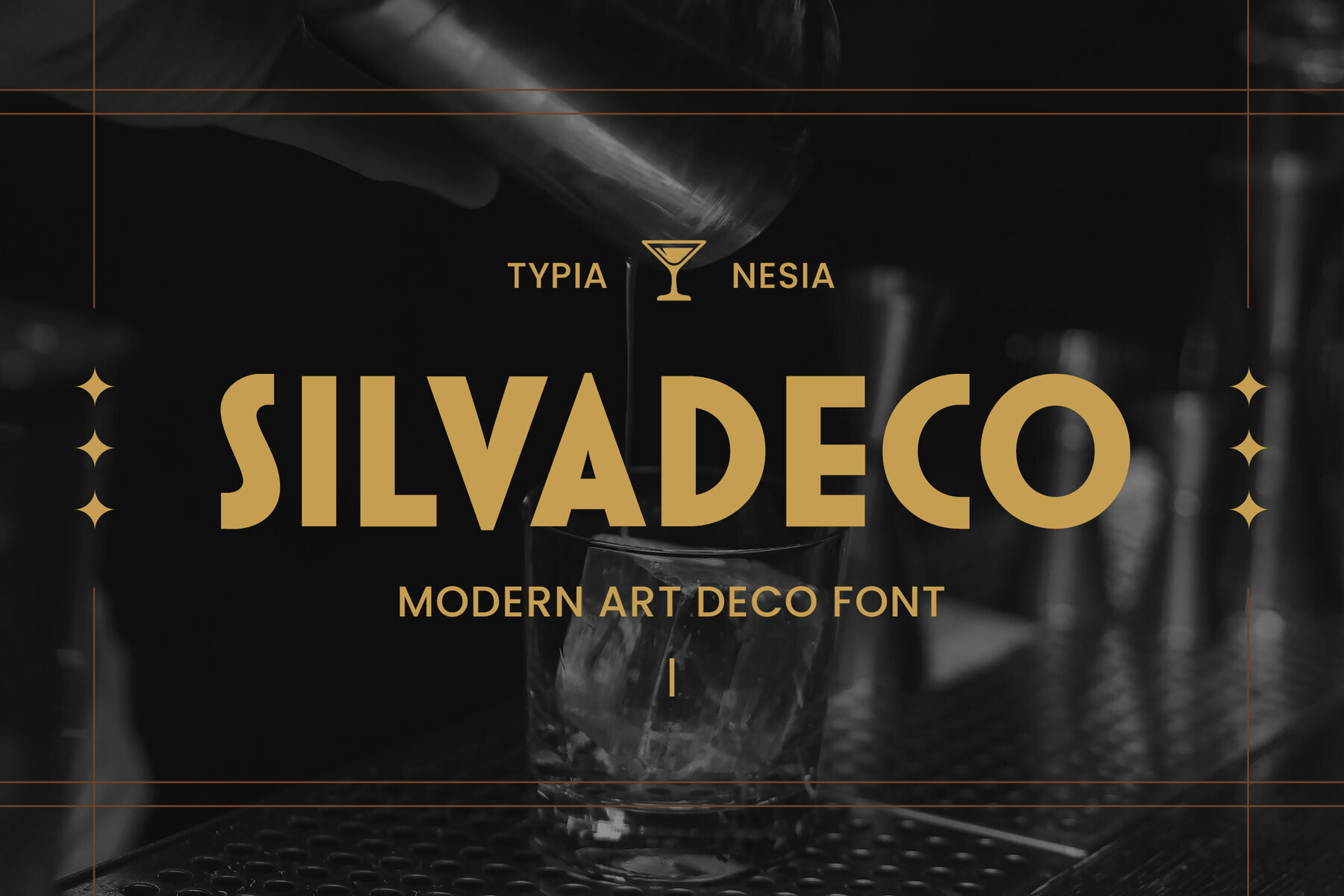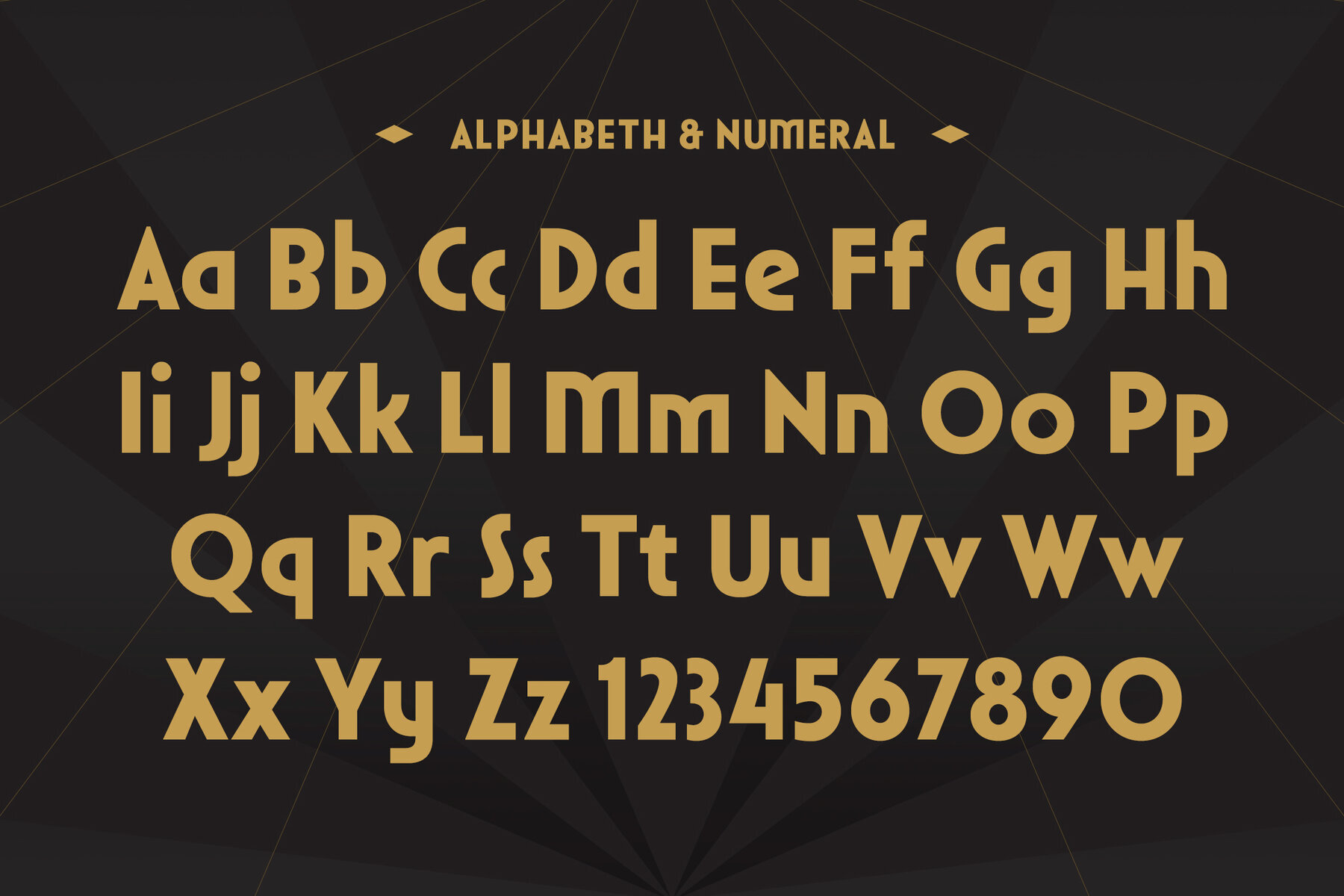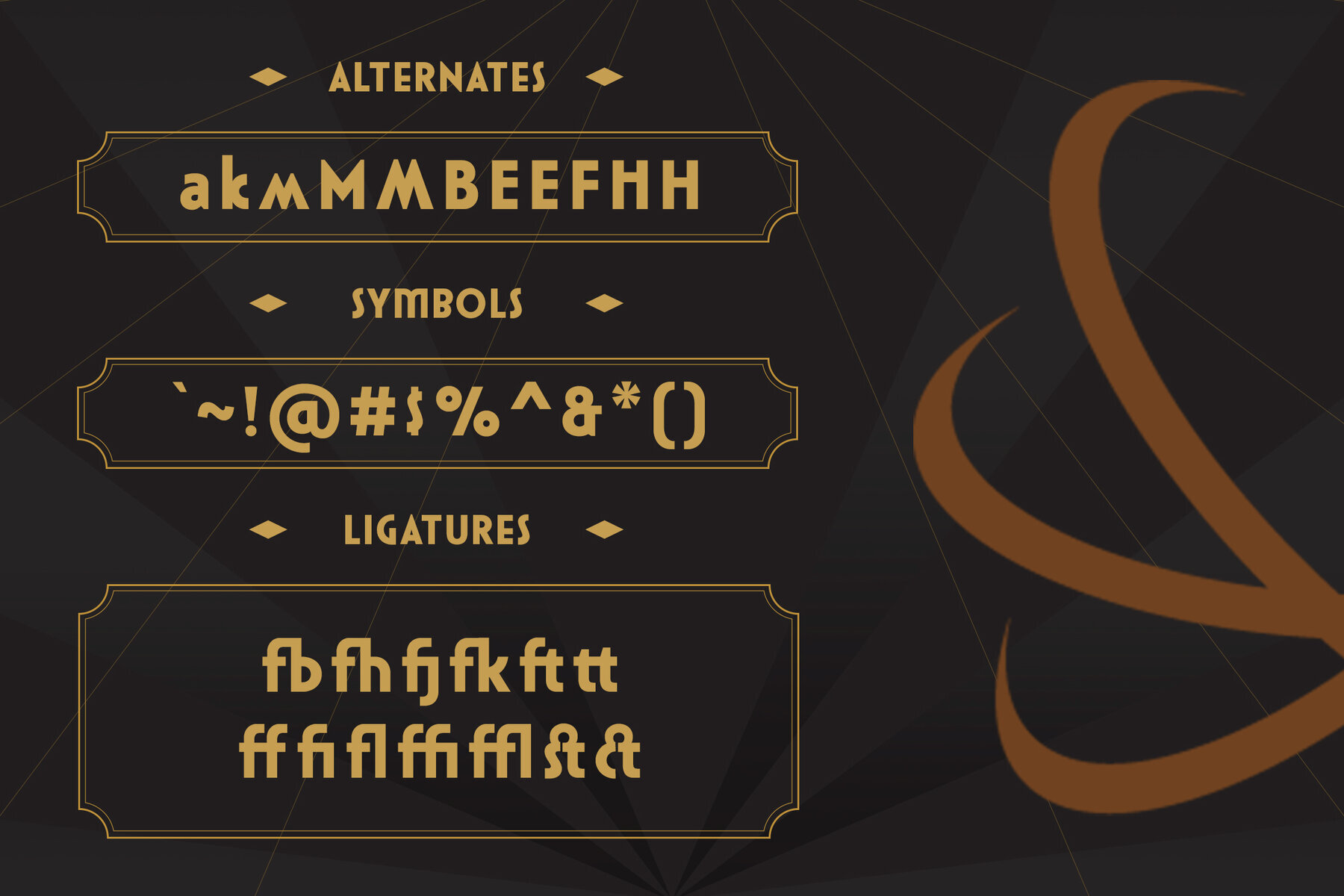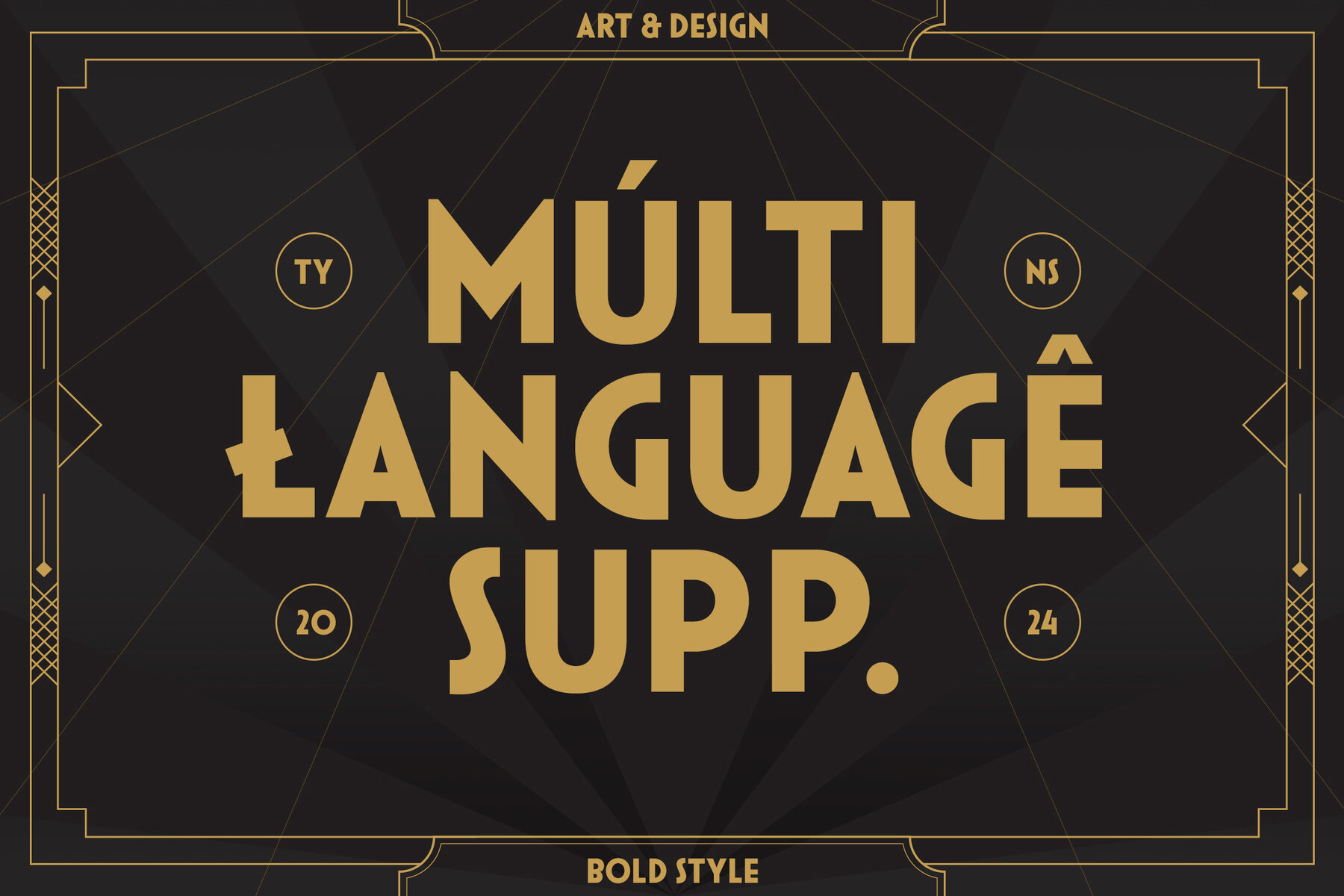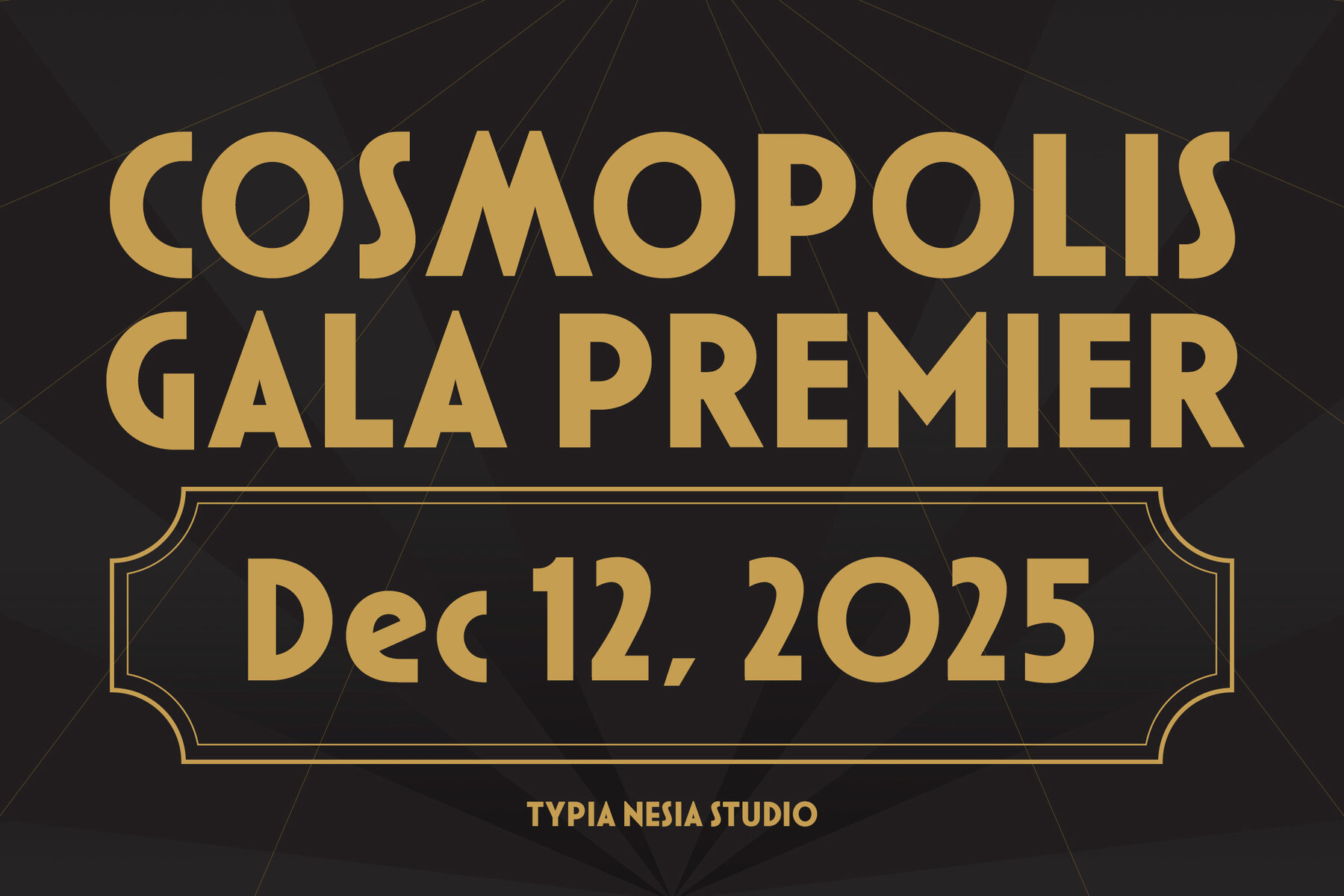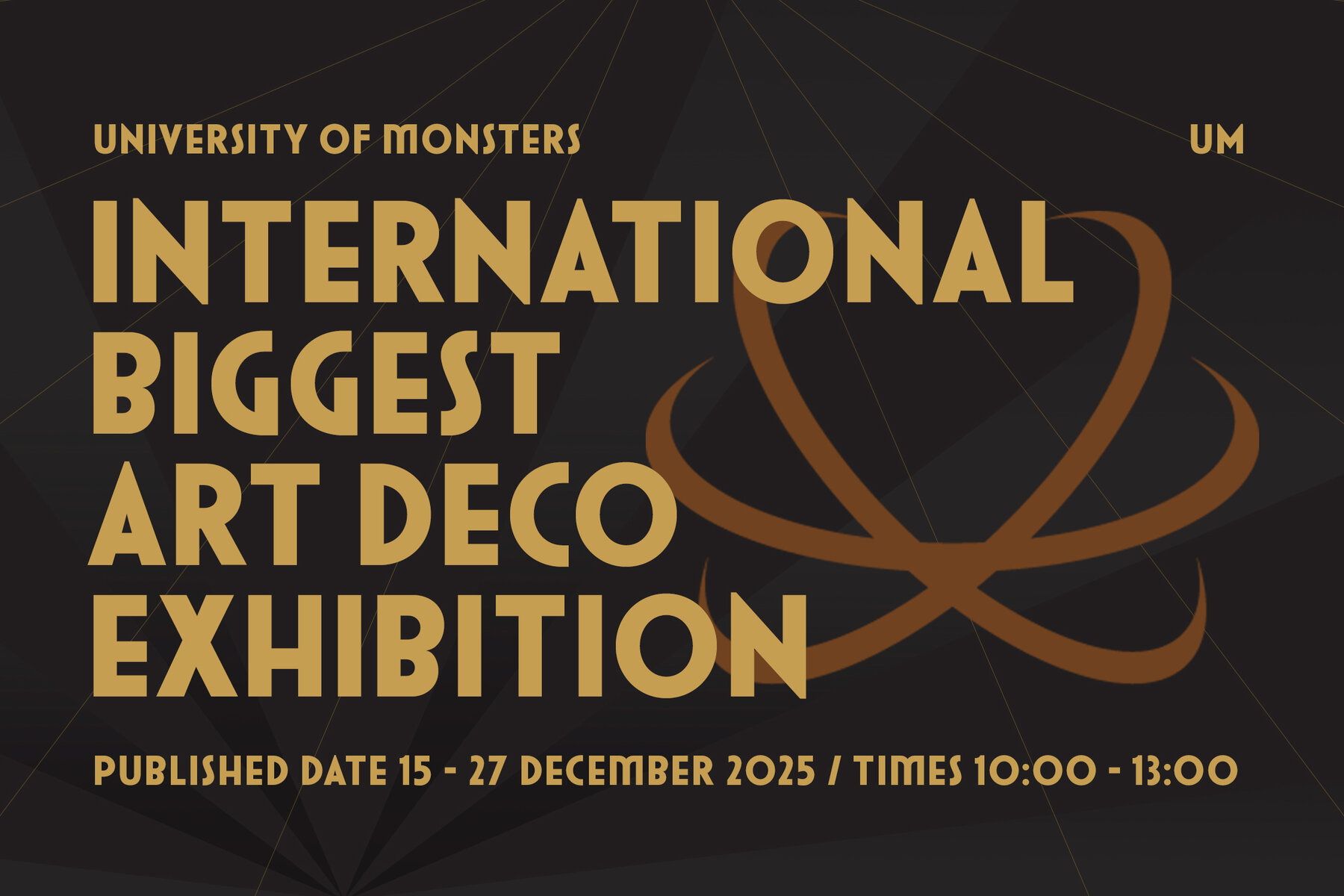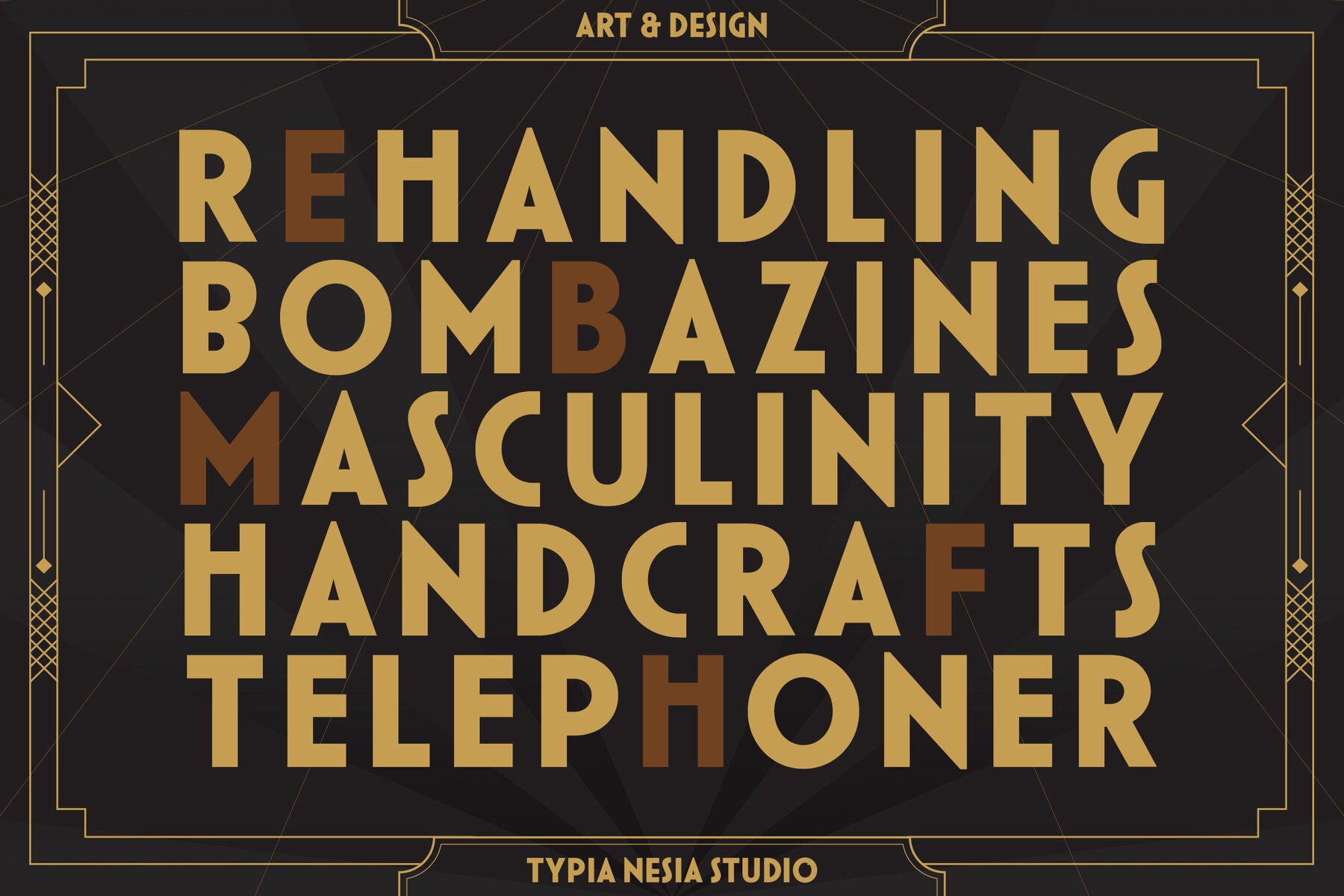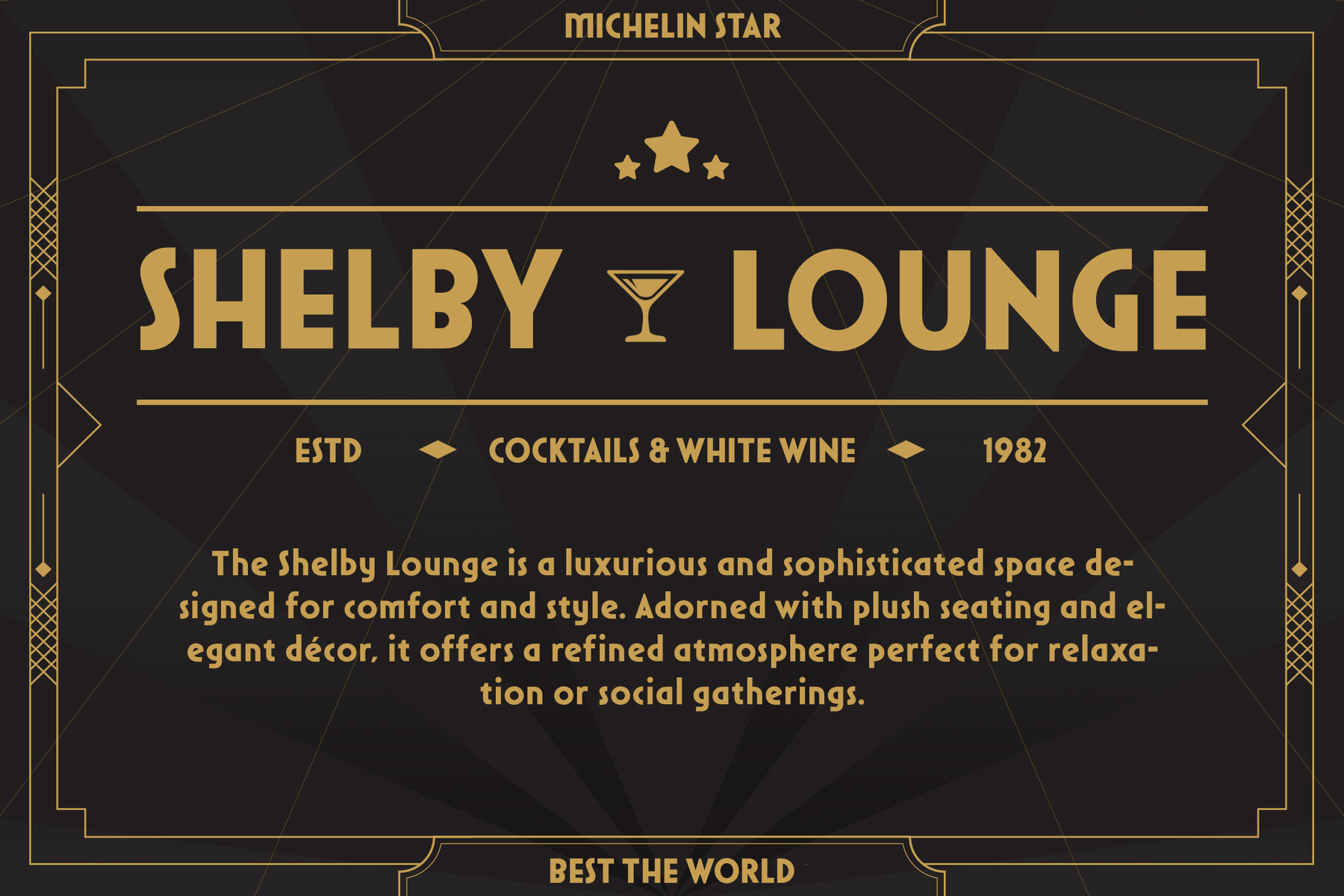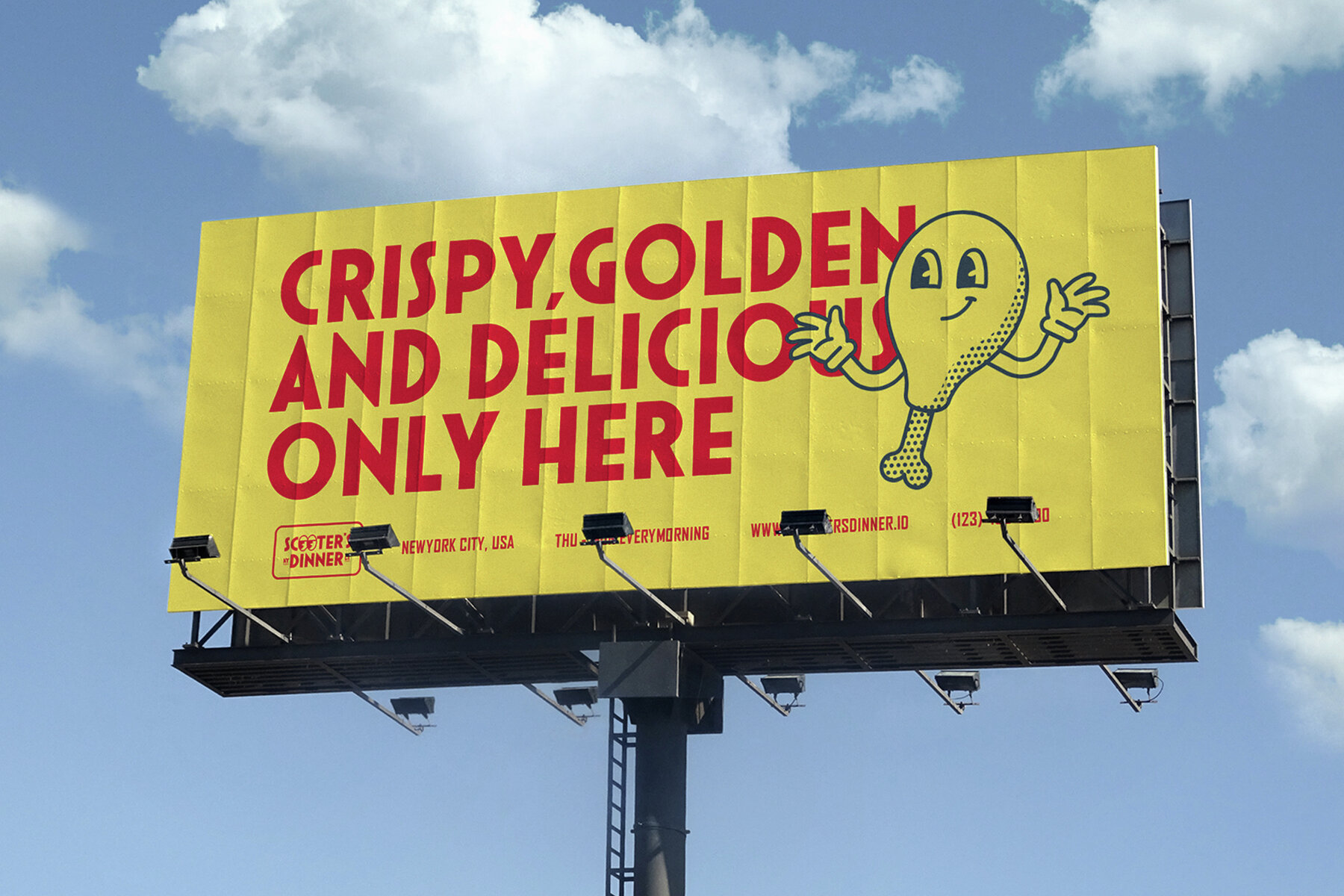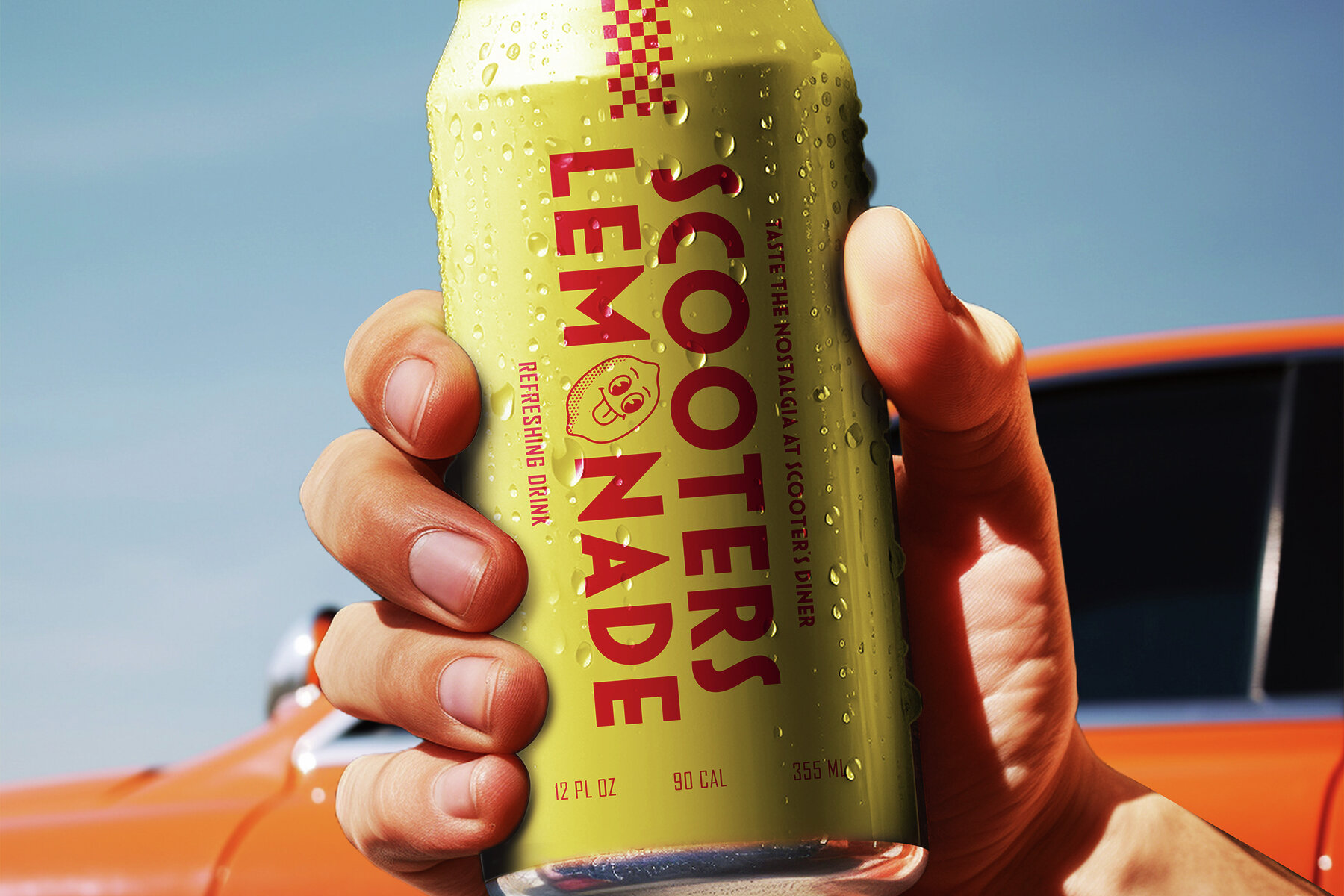
Silvadeco Font
Silvadeco Regular
Silvadeco is a Modern Art Deco Font that combines contemporary aesthetics with the timeless elegance of the Art Deco era. Its bold geometric shapes, evoking a sense of luxury and modern, make it perfect for projects that require a stylish and bold look, such as branding, web design, high-end packaging, editorial design, event invitations, posters, elegant product labels and any project that requires a touch of Modern and Art Deco style, The versatile font style ensures it performs beautifully in both print and digital formats, providing a polished and artistic look to logos, headlines, and body text. Comes with a complete set of uppercase and lowercase letters, punctuation, numerals, and alternate characters to support your creative needs. Additionally, it offers extensive multilingual support, making it a versatile choice for global applications. Designed with precision and attention to detail, Silvadeco captures the essence of the Art Deco movement while incorporating modern design elements.